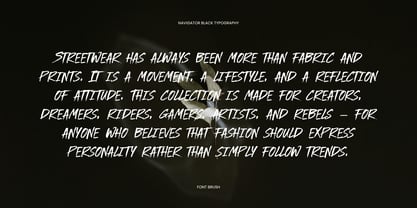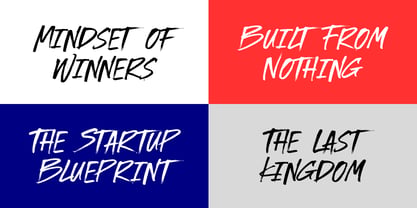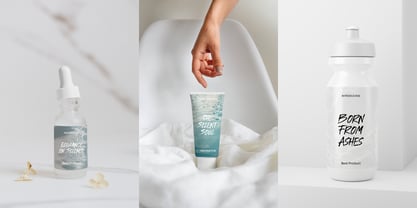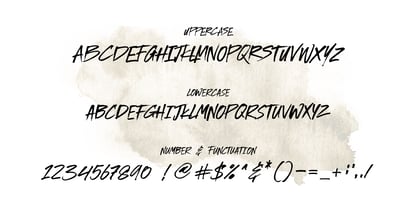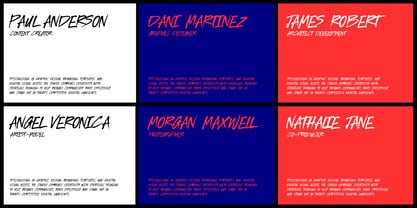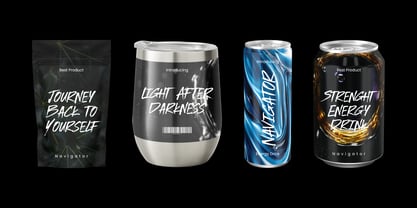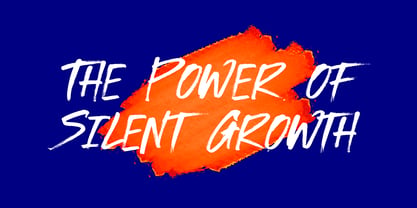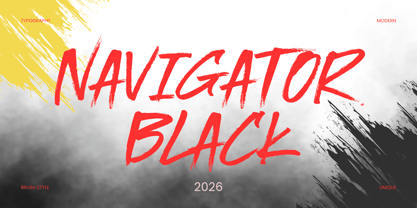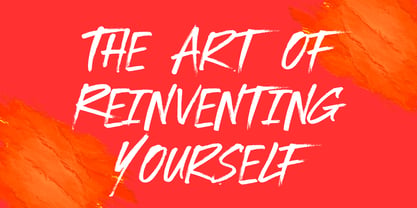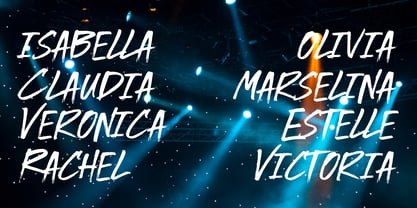
Nafigator Black
by Gatype
The Nafigator Black Font Family was designed by khaidir and published by Gatype. Nafigator Black contains 1 styles. More about this family
Nafigator Black is a modern casual handwritten font with a detailed and unique brushstroke texture. It can be used for a variety of purposes, such as titles, signatures, letterheads, signage, labels, newsletters, posters, logos, correspondence, wedding invitations, badges, and more.
Designers: khaidir
Foundry: Gatype